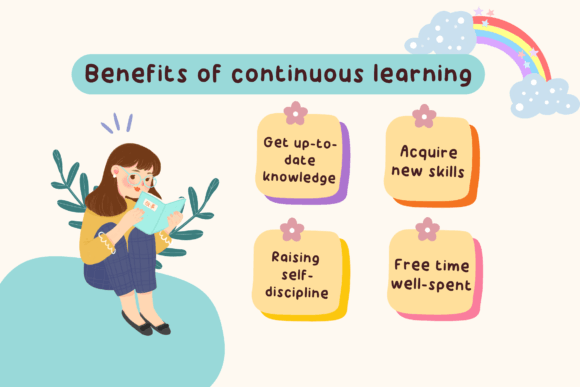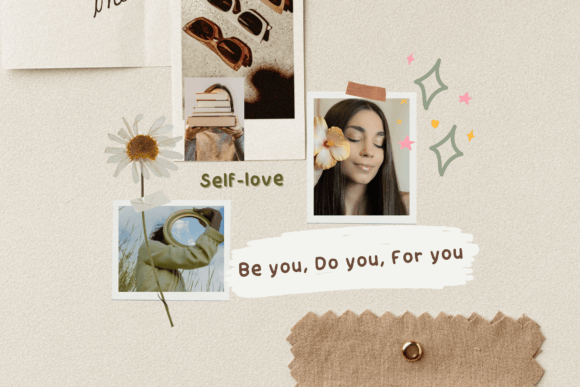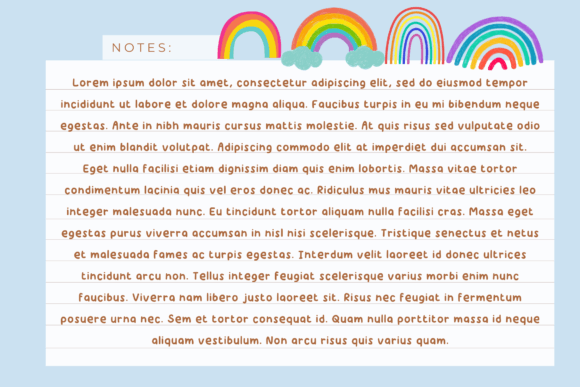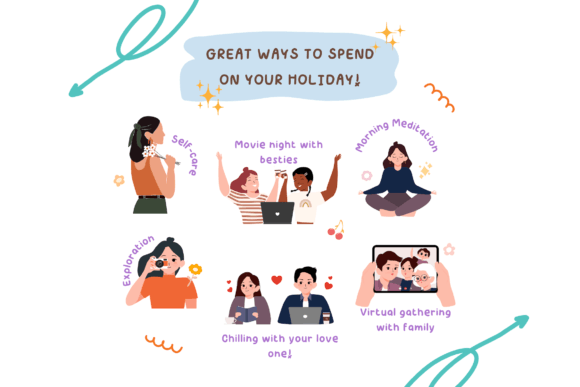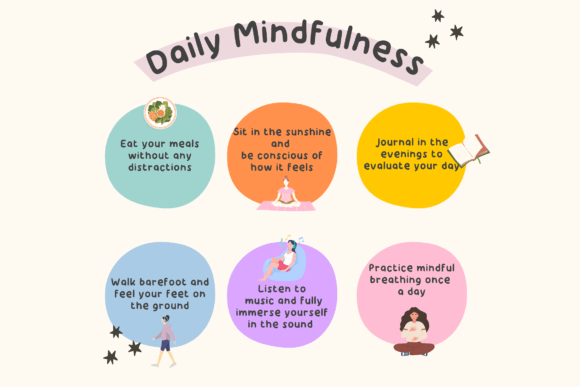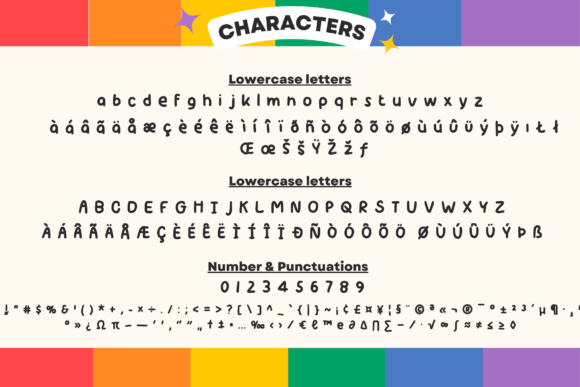
Rainbow Candy Font
About Rainbow Candy Font
The Rainbow Candy Font Download is a playful and charming handwritten typeface that captures the spirit of fun and friendliness. With its cute style and smooth, natural flow, this font is designed to bring warmth and joy to your creative projects. Its versatility makes it an excellent choice for crafters, designers, and anyone looking to add a personal, cheerful touch to their work.
Unlike standard fonts that may feel rigid or formal, Rainbow Candy has a relaxed and approachable quality. Each letter is carefully shaped to balance readability with creativity, making it stand out in both print and digital formats. Whether you are designing invitations, crafting personalized gifts, or creating vibrant digital content, this font is ready to become your favorite go-to script.
Features of Rainbow Candy Font
The Rainbow Candy Font Download comes packed with features that make it a delightful addition to any designer’s toolkit:
• Playful handwritten style that feels natural and friendly
• Smooth curves and balanced letters for easy readability
• Cute and cheerful appearance suitable for all ages
• PUA encoding for quick access to special glyphs and swashes
• Versatility across digital, print, and DIY projects
Best Uses for Rainbow Candy Font
This font adapts beautifully to a wide range of creative needs. Some of the most popular uses of the Rainbow Candy Font Download include:
• Craft projects – Add personality to handmade gifts, scrapbooks, and DIY decor
• Greeting and invitation cards – Make birthdays, weddings, and holidays more special
• Digital design – Use for presentations, blog graphics, or social media posts
• Branding and packaging – Give products a playful, approachable look
• Educational materials – Perfect for children’s books, worksheets, and posters
• Personalized gifts – Create mugs, t-shirts, or tote bags with fun lettering
Why Choose Rainbow Candy Font
The Rainbow Candy Font Download stands out because it perfectly combines charm with practicality. Many fun fonts lean too heavily toward decorative styles, making them less usable in everyday design work. Rainbow Candy, however, maintains a cute yet balanced appearance that works across casual and professional projects alike.
Its playful style makes it particularly appealing for children’s products, lifestyle brands, and event stationery. At the same time, its clear structure ensures that it remains easy to read, even in smaller sizes. This balance of style and usability makes Rainbow Candy a reliable font choice for a variety of design needs.
The Rainbow Candy Font Download is a fun, cute, and versatile handwritten font that can brighten up any creative project. With its friendly design, smooth flow, and wide range of applications, this font is ideal for crafts, digital content, stationery, and branding.